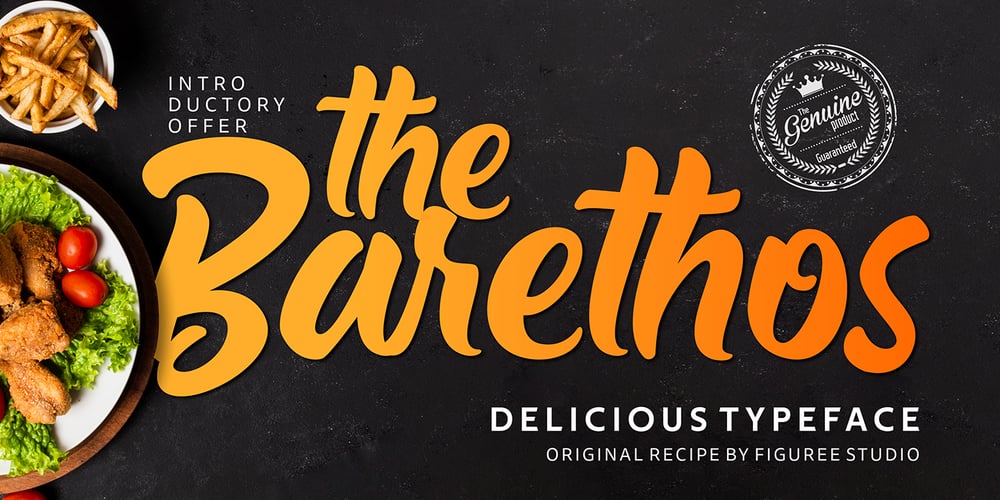
The Barethos Font Family was designed by Icep Anwar Fadhil and published by Figuree Studio. The Barethos contains 1 styles and family package options. The Barethos is a Delicious display font inspired by tasty food. Its unique character is very suitable for logos, packaging, branding, and other creative design needs. Very suitable combined with other fonts.Features:- Basic Latin A-Z and a-z- Numbers- Symbols- Stylistic Alternate- PUA Encode- Multilanguage SupportTo enable the OpenType Stylistic alternates, you need a program that supports OpenType features such as Adobe Illustrator CS, Adobe Indesign & CorelDraw X6-X7.There are additional ways to access alternates, using Character Map (Windows), Nexus Font (Windows), Font Book (Mac) or a software program such as PopChar (for Windows and Mac).If you have any question, don’t hesitate to contact me by email. ๐